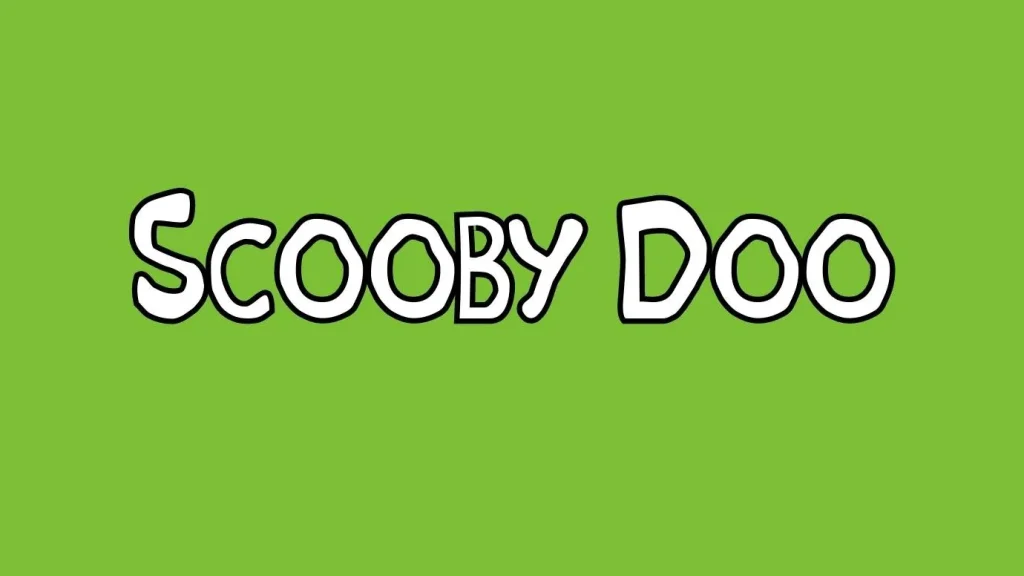
Scooby Doo Font is a fancy text style there is a strong modern feel to all letters, along with thick strokes. This is why modern designers prefer it. For the professional designs as well.
Using it can make a design stand out and be unique. Hence, once a designer understands its competencies, they will use it in many designs. Considering its keen features, it would be perfect when paired with Mulan Font to make amazing designs for the project.
In addition to bold editorial statements and graphic-heavy prints, this font can also be used as a simple logo and simple branding. Your designs will stand out and be unique with this new type. Regular is a subfamily of the font.
The letters of this typeface demonstrate its versatility. With full concentration and experience, each letter has been created. Therefore, its letters didn’t contain any errors. You can also make a good pair to combine it with autograph font.
In addition to creating covers and poster designs, you can also create business cards, logos, and product designs with clean and elegant textures. Web development can also be done on it.
The letters of this typeface, have a unique look there are few characters in every letter of this typeface that have the right height, and width, and idealized space between the letters. The design of this typeface makes this lettering an incredible choice for dynamic projects.
This classic typeface is perfect for use in both formal and informal settings. Many developers used this font for website designing, banner ad designing, title designing, and many more.
Is Scooby Doo a proportionally spaced typeface?
The font is a proportionally spaced font. This means that the glyphs are based on the proportions of the stylish body, which makes them easy to read.